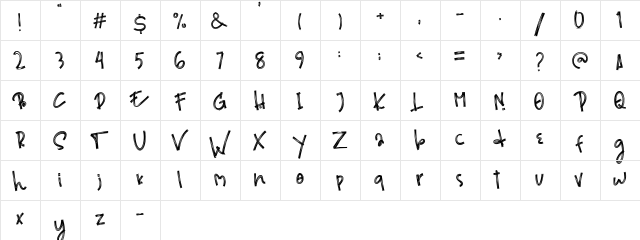
Existancy Regular
| Designer | Surya Iswandi |
Design Context for Existancy Typeface
Existancy is a composed and adaptable typeface that performs quietly and consistently across a wide range of design contexts.